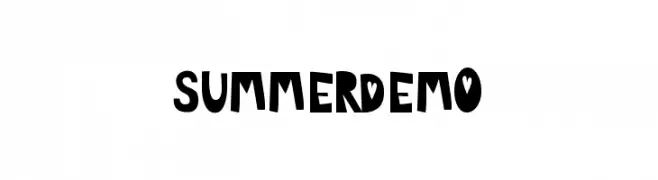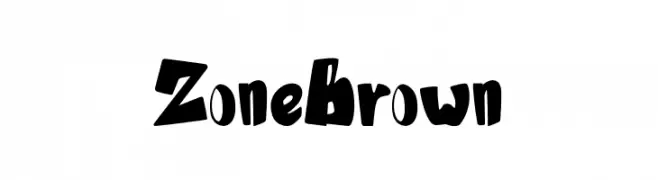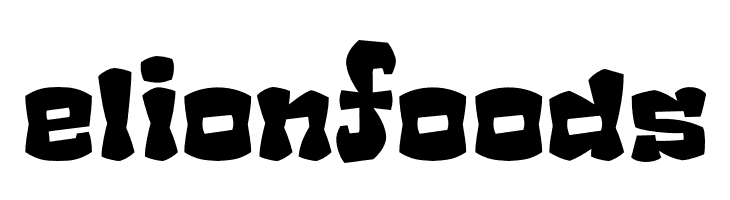
A playful, monster-themed font with bold, whimsical characters.
A bold, playful font with a hand-drawn, irregular style.
A bold, playful font with irregular, hand-drawn shapes.
A playful, bold font with rounded, whimsical characters perfect for fun projects.
A playful, bold font with thick, rounded characters and a whimsical style.
A bold, hand-drawn font with a textured, doodle-like pattern.
A decorative font with playful patterns and motifs, ideal for eye-catching designs.
A bold, playful font with a three-dimensional outline and rounded characters.
A bold, rounded font with a playful, retro vibe.
A playful and bold font with a whimsical, irregular design.